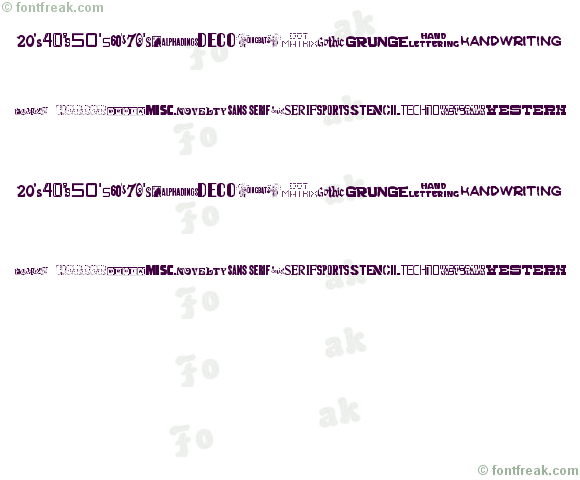
About Font Collecting JL
Font Collecting JL by Jeff Levine is a striking decorative font that captures the essence of unique typography. This freeware font, designed in 2003, boasts a playful and whimsical style that makes it suitable for a variety of creative projects. Its design incorporates bold stroke weights and varying contrast, giving it a dynamic visual appeal that stands out in any application. The spacing is thoughtfully arranged, allowing for easy readability while maintaining a fun and engaging appearance.
One of the standout features of Font Collecting JL is its decorative elements, which draw inspiration from various artistic influences. This font is particularly well-suited for use in wedding invitations, where its charming aesthetics can add a personal touch to the event. Additionally, it works wonderfully for movie posters, where a unique font can help convey the theme and mood of the film. Restaurant menus can benefit from its eye-catching design, making dishes come alive through typography. Content creators will also find this font appealing for social media graphics, as it can elevate the visual quality of posts and advertisements.
The target audience for Font Collecting JL includes graphic designers, small business owners, and content creators who appreciate the importance of typography in their projects. This font is designed to inspire creativity and encourage unique design solutions.
What sets Font Collecting JL apart is its distinctive character and versatility. It merges fun with functionality, making it a go-to choice for anyone looking to inject personality into their work. With its engaging style and free availability, the Font Collecting JL font free download is a perfect addition to any designer's toolkit.